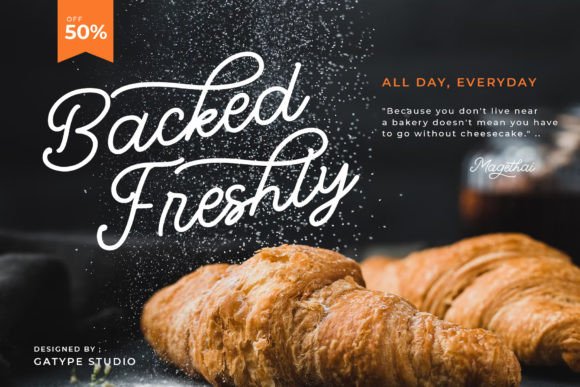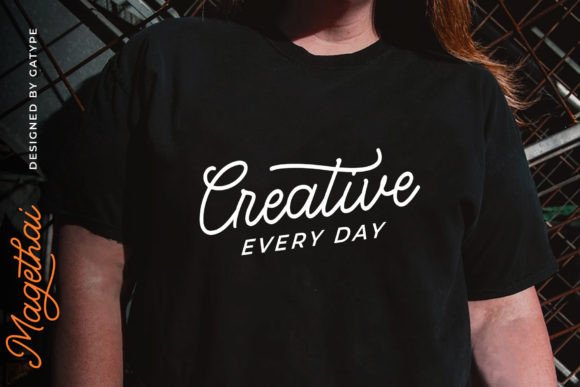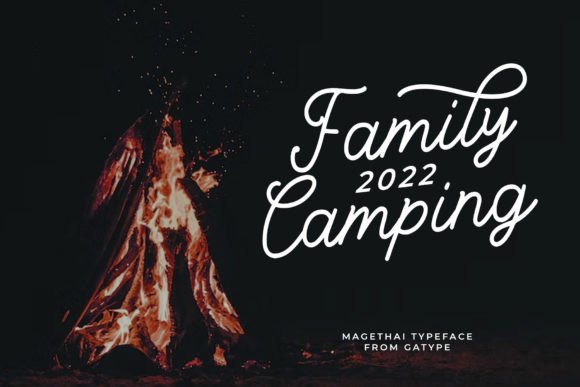
Introduction to Magethai Font
Have you ever stared at a blank canvas, waiting for inspiration to strike, only to have it hit you like a ton of bricks when you least expect it? That’s exactly what happened to me the other day while working on a branding project for a new client. I was searching for the perfect font to convey their message, and that’s when I stumbled upon the stunning Magethai Font. Its sleek and modern design immediately caught my attention, and I knew I had to learn more about it.
As a designer, I can attest to the importance of having high-quality design resources at your fingertips. The Magethai Font is a game-changer, offering a beautiful mono-line design that’s perfect for a wide range of creative projects, from logo design to apparel and signage. With its transparent background and high-quality design, it’s no wonder why designers are raving about this font.
Key Features of Magethai Font
- Unique and creative Thai font design, ideal for creative projects and design resources.
- Magethai Font is perfect for designers looking for a unique and creative font to enhance their design projects.
Honest Review: Magethai Font
I recently stumbled upon the Magethai Font, and I must say it’s been a game-changer for my creative projects. As a designer, I’m always on the lookout for high-quality design resources that can elevate my work.
- ✨ Unique and modern design aesthetic that adds a touch of sophistication to any project
- ✨ Highly customizable, making it perfect for a wide range of creative projects
- ⚠️ The transparent background option can sometimes cause issues with text legibility
The Magethai Font is ideal for creative projects that require a high-quality, unique design resource. It’s perfect for presentations, social media graphics, and marketing materials. You can also use it to create a transparent background, adding an extra layer of creativity to your design.
Experiment with different font sizes and styles to create a visually appealing design. You can also combine the Magethai Font with other design elements, such as images and graphics, to create a cohesive and engaging design. With its high-quality design and free download, the Magethai Font is a valuable design resource for any creative project.